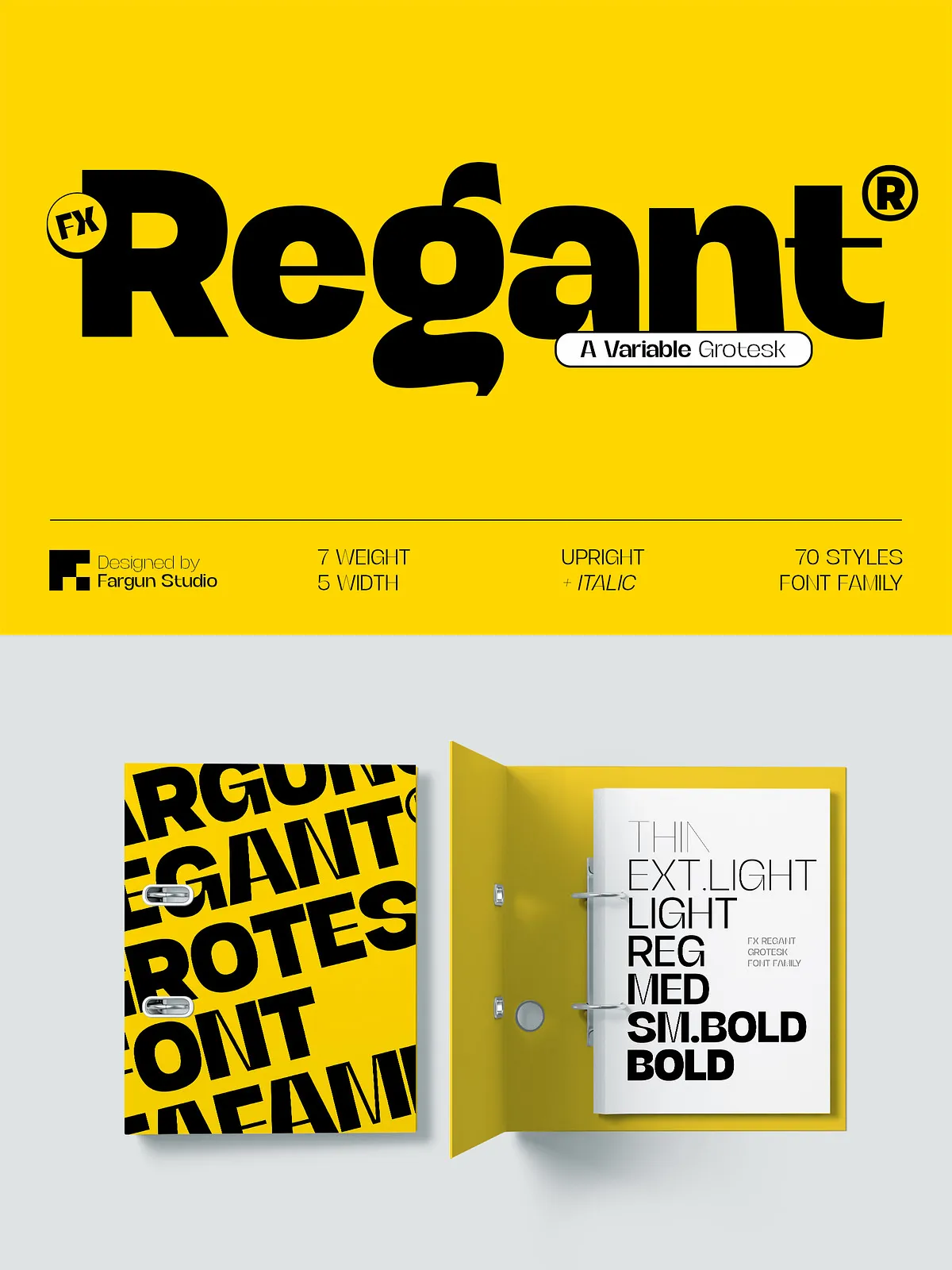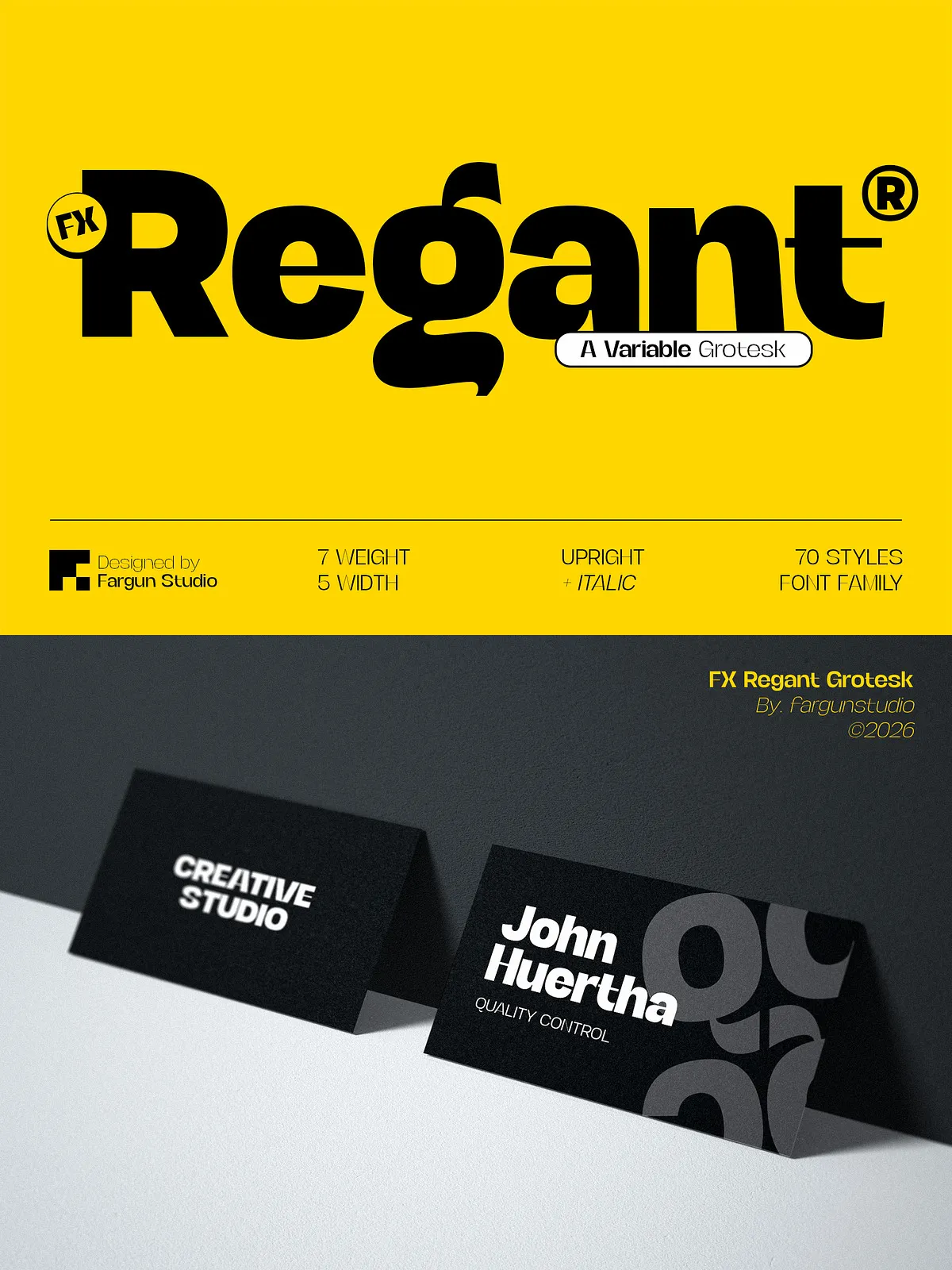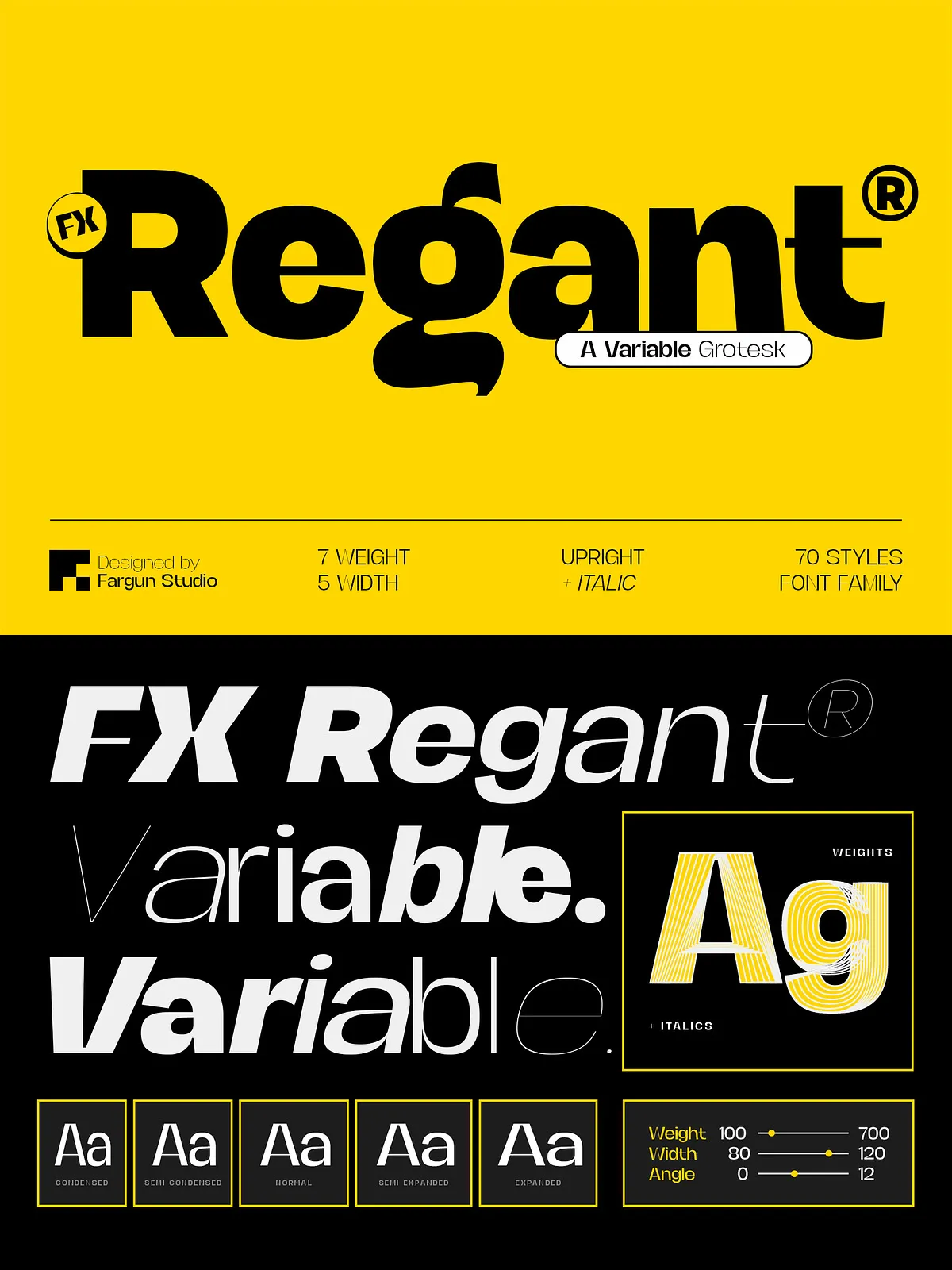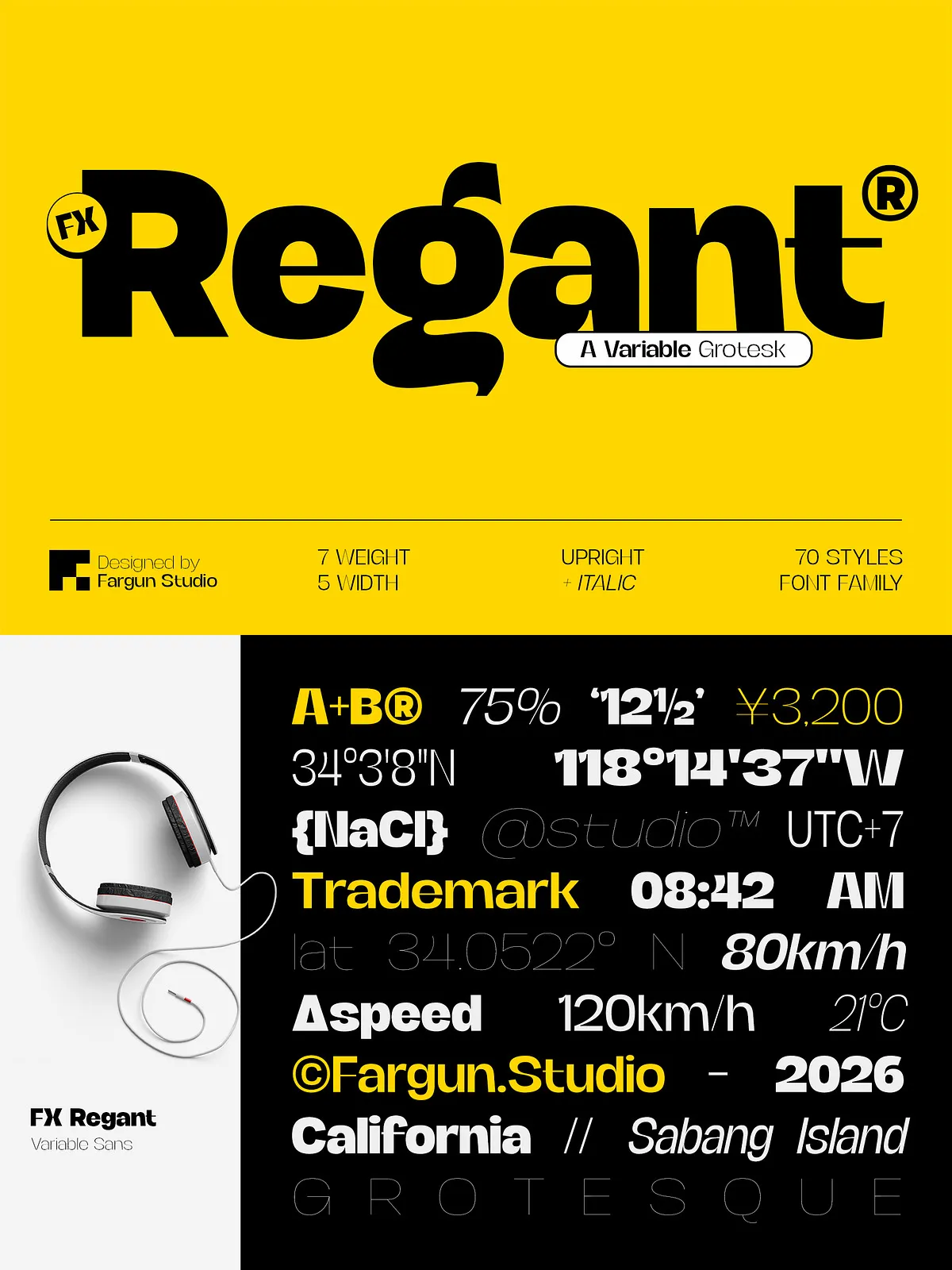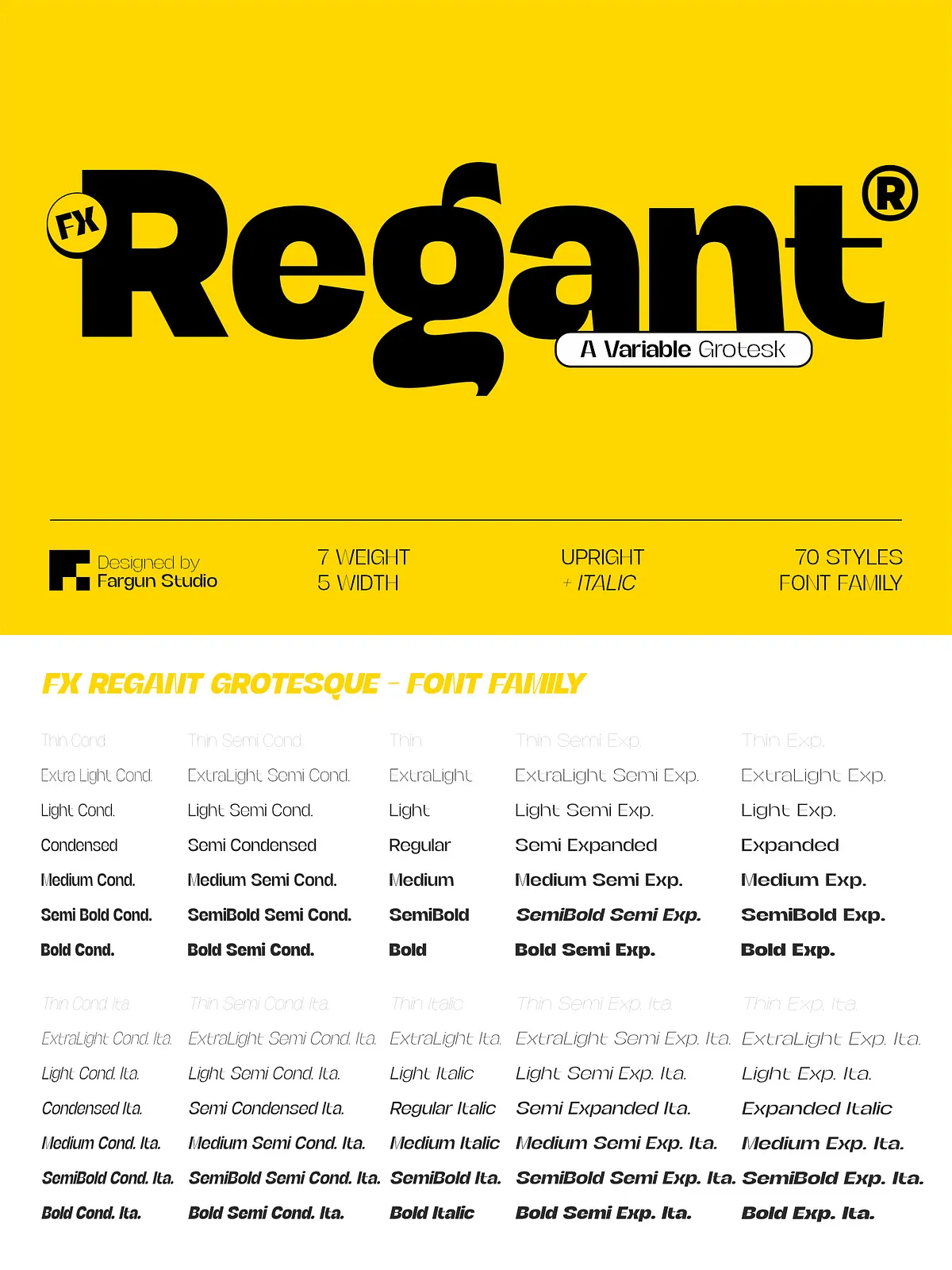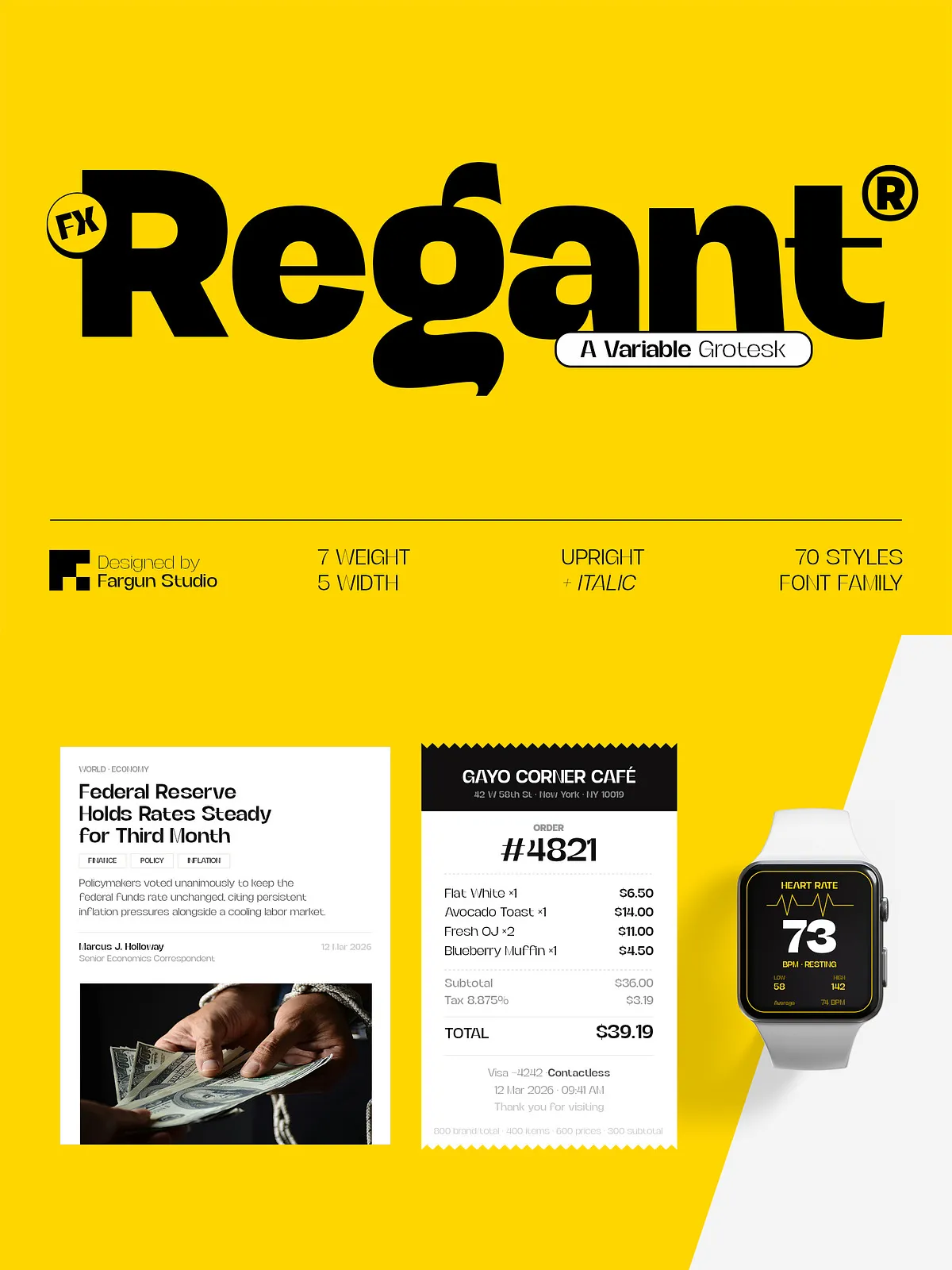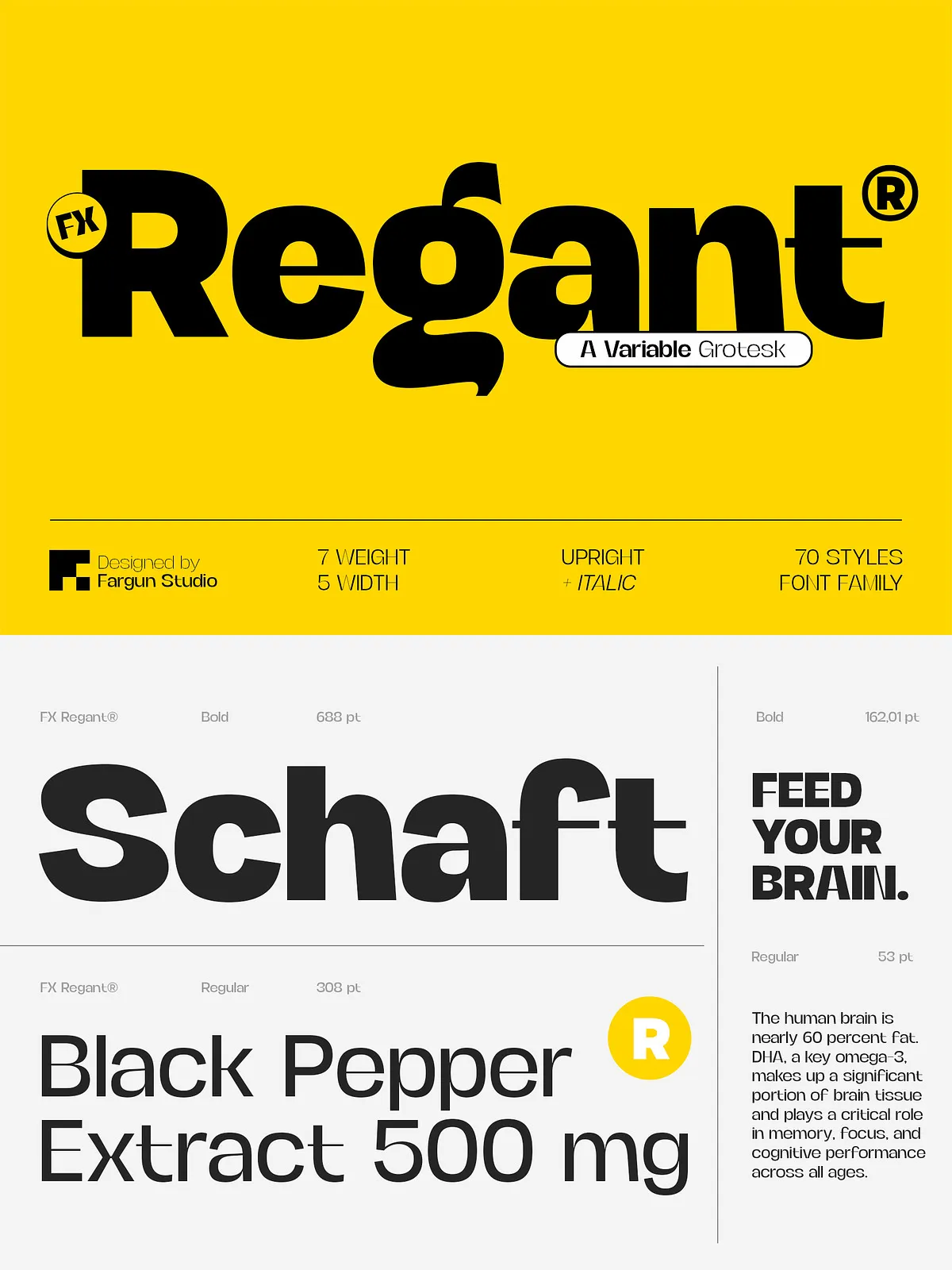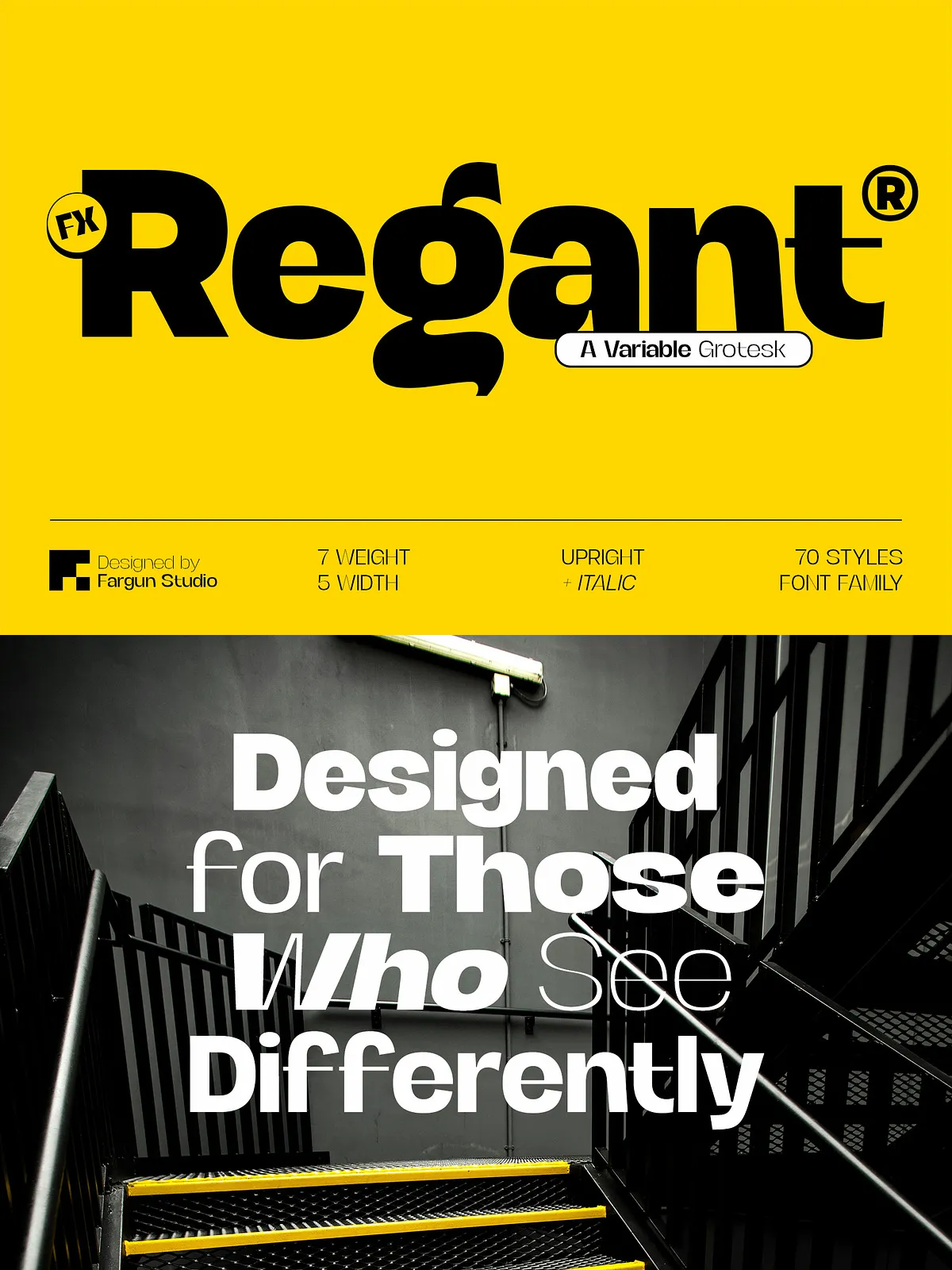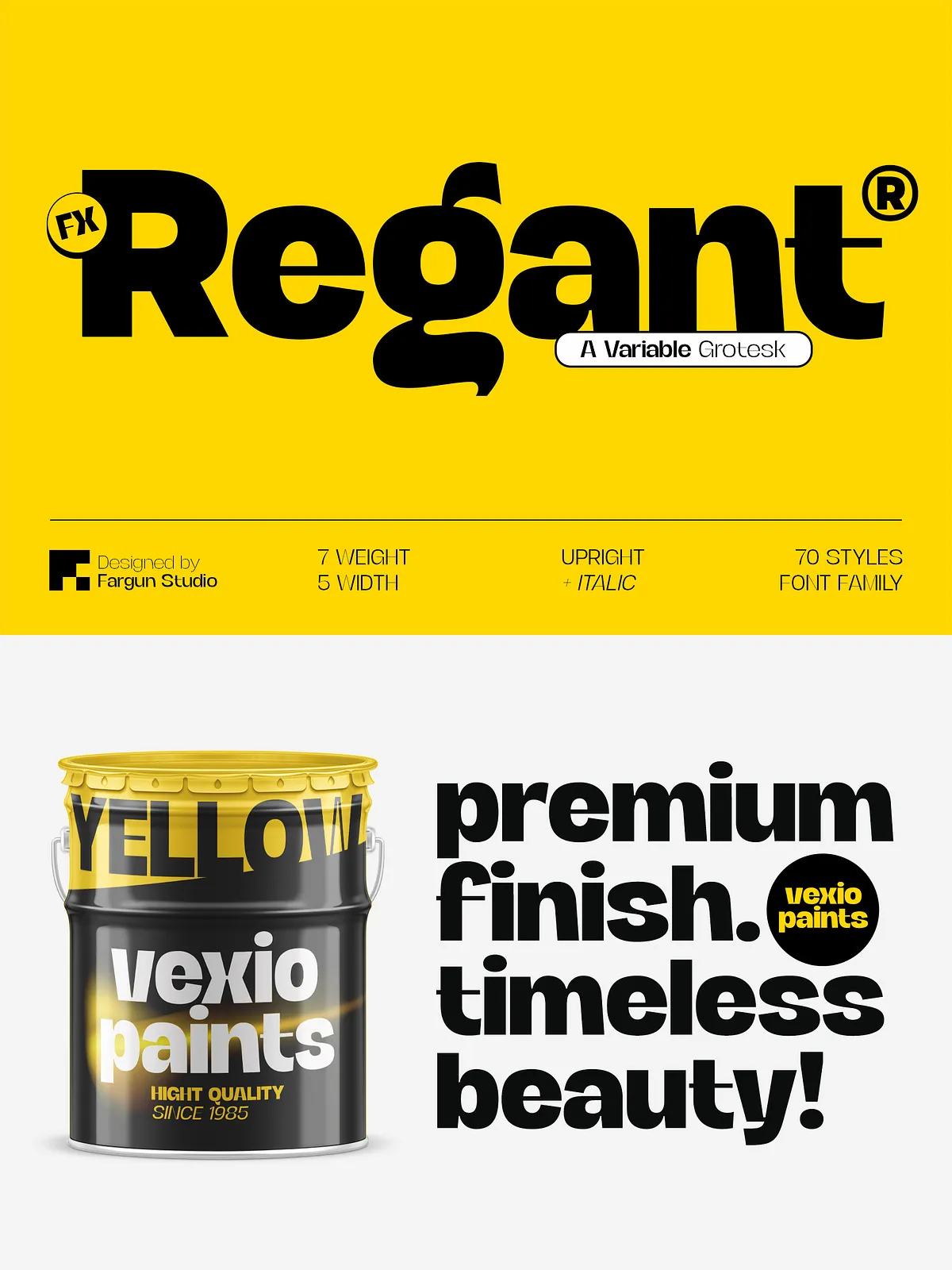
Regant stands as a powerful and versatile grotesk typeface, engineered specifically for designers who require maximum flexibility without sacrificing aesthetic quality. By combining bold geometric construction with refined contemporary details, Regant delivers a strong visual identity that feels modern, confident, and highly adaptable. This typeface is built to handle a wide range of creative applications, from subtle body text to commanding headlines, making it an essential tool for any professional designer’s toolkit.
Extensive Style Variety
A Comprehensive Family
What sets Regant apart is its sheer breadth. The family includes an impressive 70 styles, offering unparalleled variety for complex design systems. With 7 distinct weights and 5 width variations, designers have precise control over the visual weight and spatial dynamics of their typography. The inclusion of both Upright and Italic styles ensures that typographic hierarchy is maintained seamlessly across all levels of text composition.
Variable Font Technology
Embracing modern technology, Regant features a fully functional Variable Font version. This innovation allows for seamless control over weight and width parameters, enabling designers to fine-tune typography with pixel-perfect precision. The Variable Font technology supports fluid visual hierarchies and responsive design systems, allowing you to create dynamic typographic experiences from a single font file. This efficiency reduces file bloat while expanding creative possibilities.
Design Philosophy and Applications
Timeless Modernity
Inspired by the timeless characteristics of classic grotesk typefaces, Regant embraces modern design trends to offer excellent readability and balanced proportions. Its distinctive personality allows it to stand out in both print and digital environments. The typeface is designed to perform effortlessly across every design challenge, ensuring consistency and impact regardless of the medium.
Versatile Use Cases
Regant is suitable for a vast array of applications:
- Branding and Logos: Create a strong, memorable visual identity.
- Packaging and Advertising: Capture attention with clear, impactful messaging.
- Editorial and Magazines: Maintain readability and elegance in long-form content.
- Web and User Interfaces: Ensure legibility and modern aesthetics in digital spaces.
- Social Media Content: Stand out with versatile typography that scales well.
Technical Specifications
Complete Character Support
Regant is equipped with uppercase and lowercase letters, extensive numerals, punctuation, and full multilingual support. This ensures global compatibility, allowing designers to reach international audiences without worrying about character encoding issues. The inclusion of OpenType features further enhances the typographic control, providing ligatures and alternative glyphs for added stylistic flair.